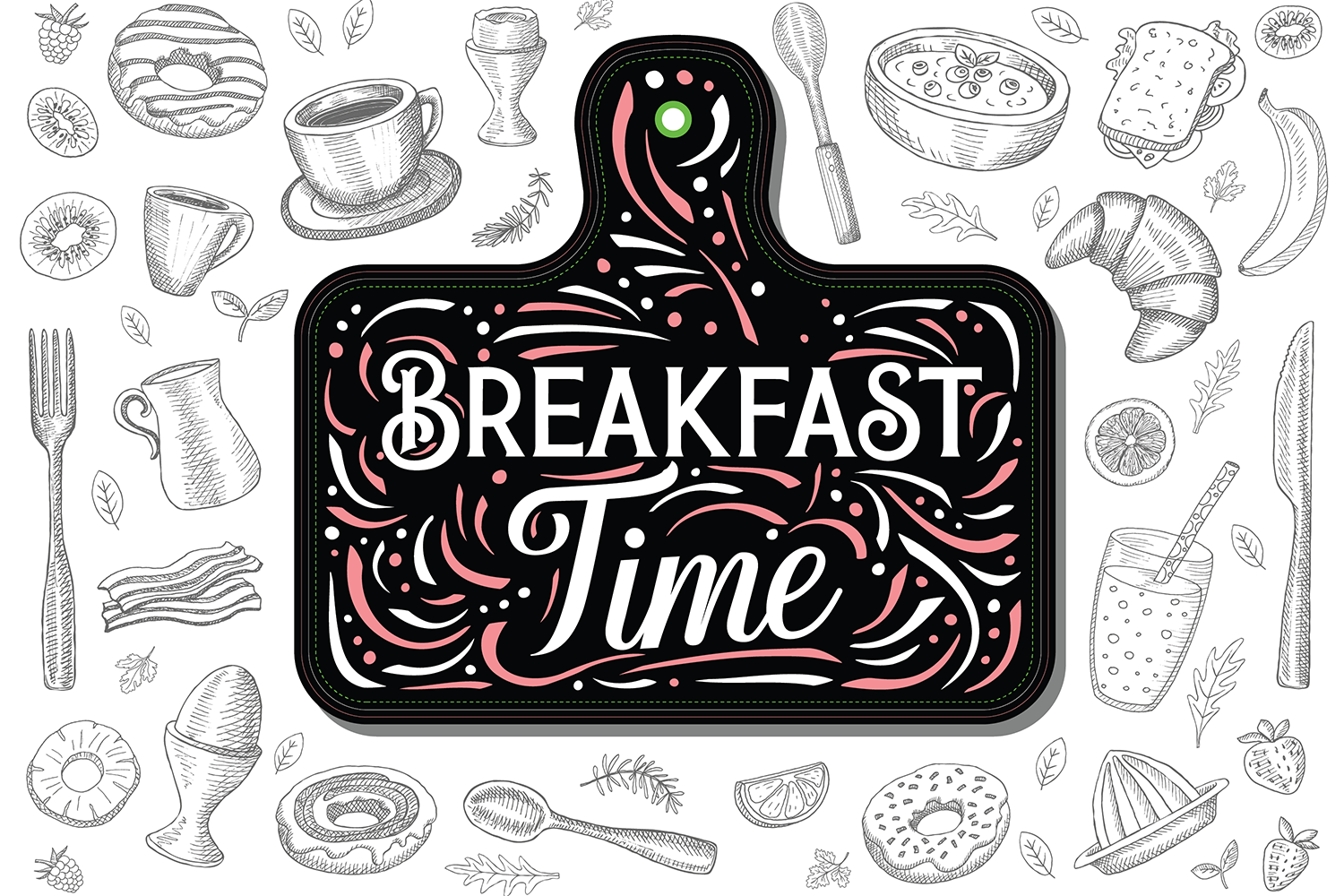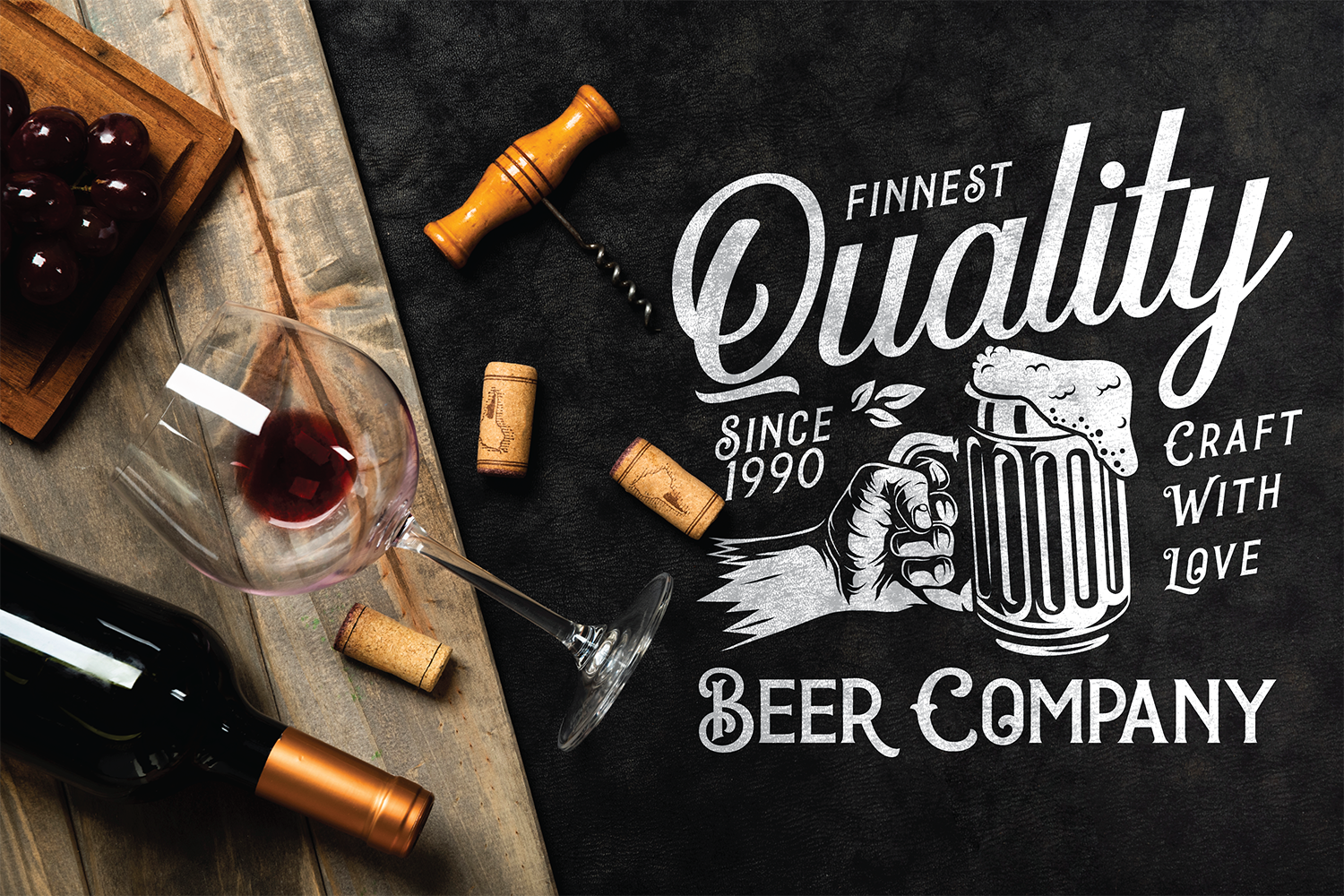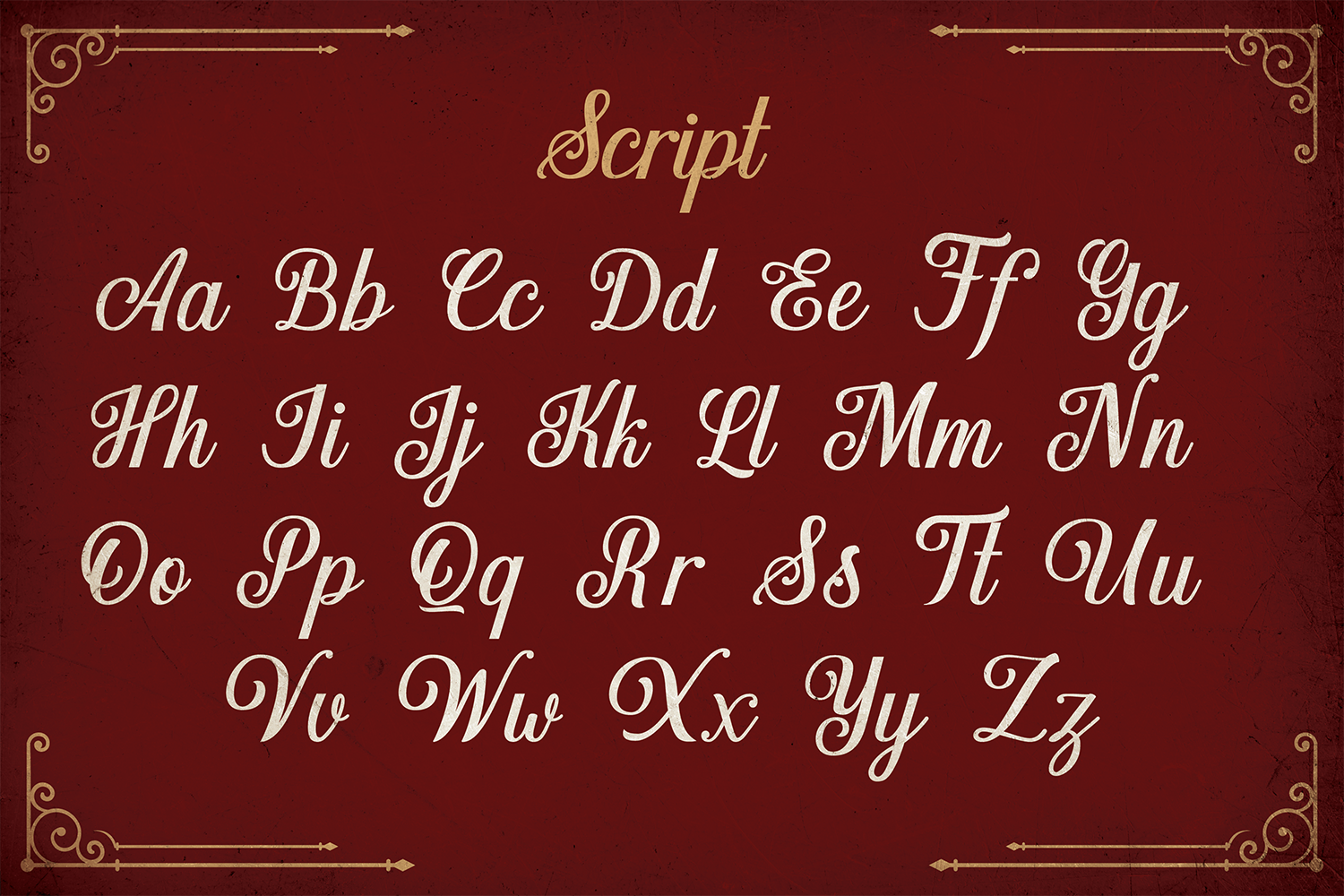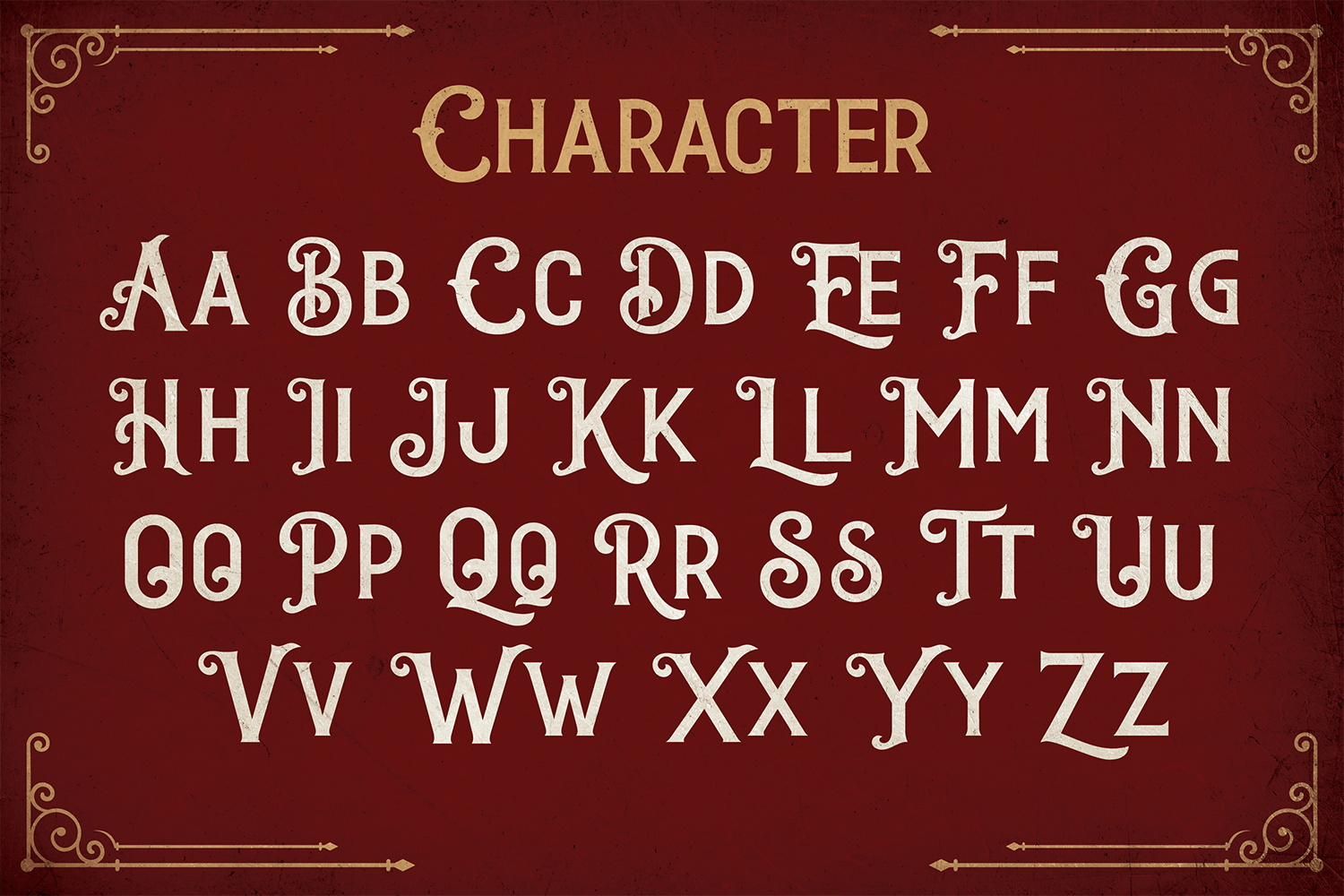
Darktown Free Font
Darktown Free Font is decorative sans and the script made with love, it is suitable for poster designs, logos, signs, and typography. There are two types of font scripts and sans that will support your project. accompanied by a bonus text style that can be edited in Adobe Illustrator. This free typeface was designed by a talented Typestory co. If you like it don’t forget to check out the full version.